We understand that selecting fonts can be tricky; many are out there, and it can be hard to choose the perfect fit!
It’s all about emotion.
When finding a brand voice and keeping things consistent and cohesive, it's crucial to consider that typeface and fonts can powerfully convey emotion to your target audience.
Fonts are interesting– they have an uncanny ability to conjure emotions with even the simplest change of with even the simplest switch from a thin font to a bolded one. Imagine a business card, for example. Are you seeing the phrase "Attorney at Law" in a sleek, uniform typeface or written in Comic Sans? Our guess is the first option.
But this isn't because lawyers are barred from using arts-and-crafts-style fonts on their business cards. As far as we know, nothing is stopping them from doing so! Lawyers, chime in if there's some law we don't know about. Other than the fact that Comic Sans might not send the message a legal expert is looking to send.
All this is to say that your chosen typeface can say more than just the text it's dressing. Your choice of font is more important than you think. And when you're designing custom t-shirts, your chosen type can make or break your entire design.
Typeface vs. Font
While we used typeface and font interchangeably above, there is a slight difference between the two: typeface is the umbrella term for a font family. Times New Roman, for example, is a typeface, and its bold, italicized, and thin variants are examples of fonts. If we zoom out even further, we'll see that there are four different groups of typefaces; typeface types, if you will. The details of each can impact how you say what you want to say.
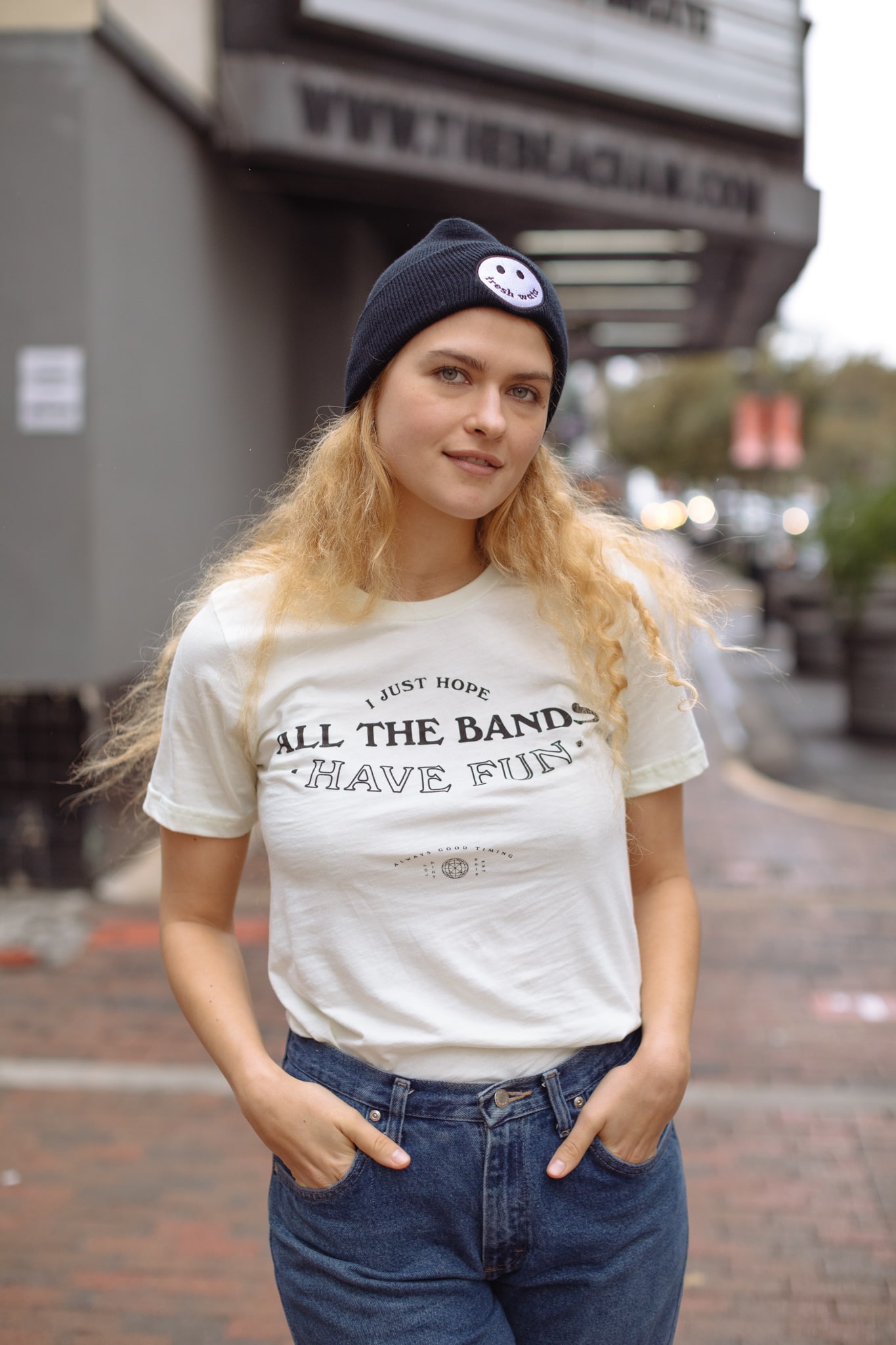
Serif Typefaces
If you've done some design work (or spent more than five minutes talking to a designer), you're likely familiar with the two most common typeface classifications: serif and sans serif.
The term "serif" refers to the tiny flares that jut from the end of a letter. Serif typefaces, like Times New Roman, tend to be classic and elegant –– a typeface you'd see on a resumé or five-course dinner menu, but maybe not on a celebratory t-shirt.
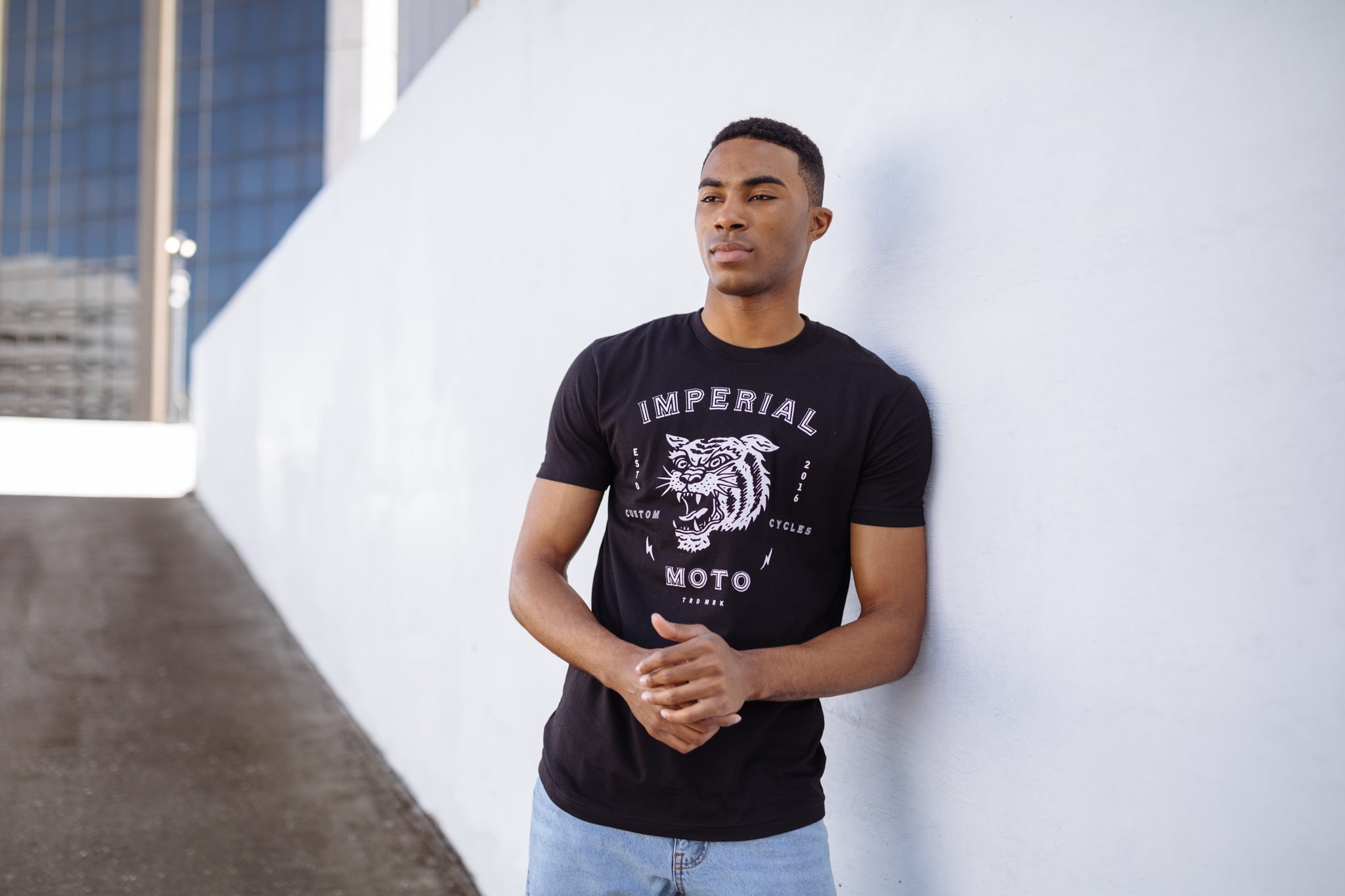
Sans Serif Typefaces
Now that we know that a "serif" is the decorative details at the end of a letter, it should be no surprise that a "sans serif" typeface is without those very frills. Part of the great debate between serif and sans serif typefaces that rages on is that, in many ways, these font families represent the "old school" and the "new school."
For all the decorated elegance of the serif, the sans serif offers a simplistic and minimalist alternative. But in the serif vs. sans serif war, sans serif is more marketable in this day and age: Netflix, Spotify, Jeep, and Google all use sans serif typefaces in their logos.
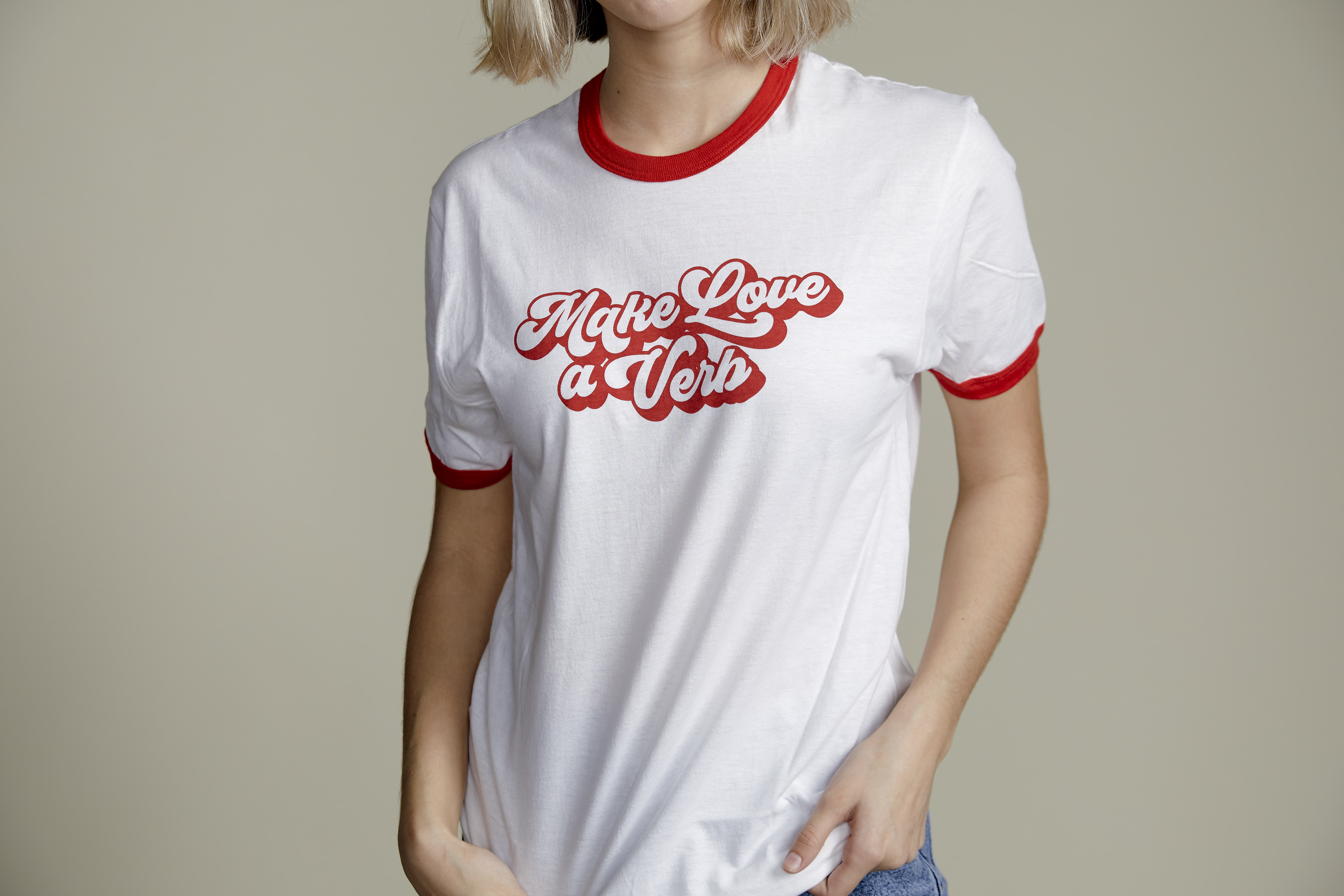
Script Typefaces
While Jeep employs a sans serif typeface, rival automaker Ford's cursive logo is a perfect example of a script typeface. This typeface and others like it run the gamut from joyful handwritten fonts to suave, swoopy typefaces which seem right at home adorning a hotel in Beverly Hills or Miami Beach.
(Real Thread's redesigned look also features a script-style typeface, ICYMI.)
Script-style typefaces are also great for retro, Americana-inspired designs, making them the go-to for super-cool shops like Deus Ex Machina and the motorcycle clubs which inspired them.
A Typeface for Every Mood
Now that we know what the most popular styles of typefaces look like, let's examine how you can say more about your chosen typeface.
When You Want to Be Serious
Calibri. Times New Roman. Helvetica. These typefaces might be a mix of sans-serif and serif-adorned styles, but they all share an air of professionalism. On a business card, they show you're serious about what you do. In an essay, they make it known that you're serious about your subject matter, and on custom t-shirts, for your business, they tell the world your team is the one for the job.
When You Want to Be Fun
Not every t-shirt has to be a walking billboard –– and with the right font, yours can be a good time on wheels while still repping your brand. Bubbly, charming, or uplifting styles (yes, we're still talking about typefaces!) can help differentiate your brand and break away from the status quo. Inspiration is everywhere. And if you're using custom t-shirts to promote an event or commemorate a family reunion, these typefaces can remind wearers what a good time the whole thing was for years to come.